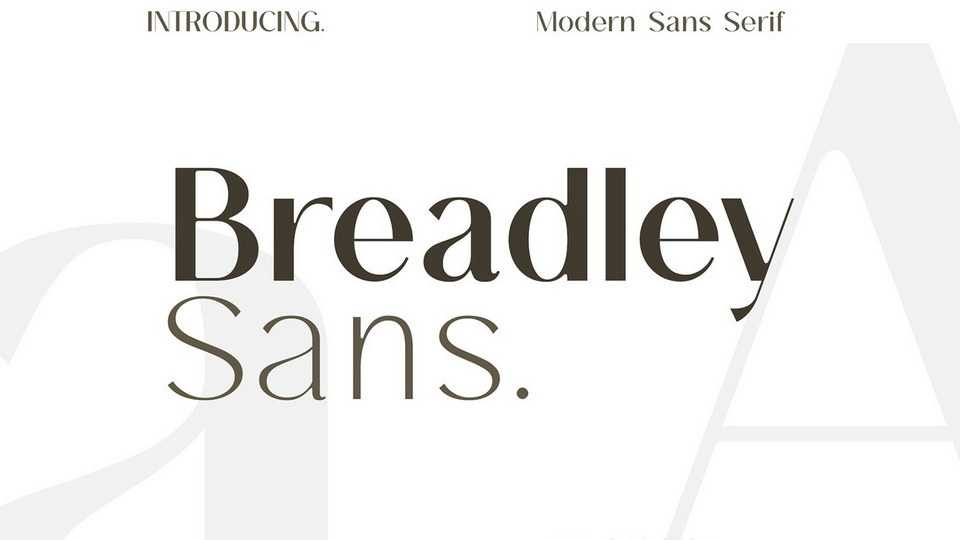
Download Breadley Sans font, a modern, elegant sans serif typeface. Breadley Sans pairs well with other fonts, but also stands strongly on its own as a heading and brand representative for an elegant look.
Designer: Ardyana Types